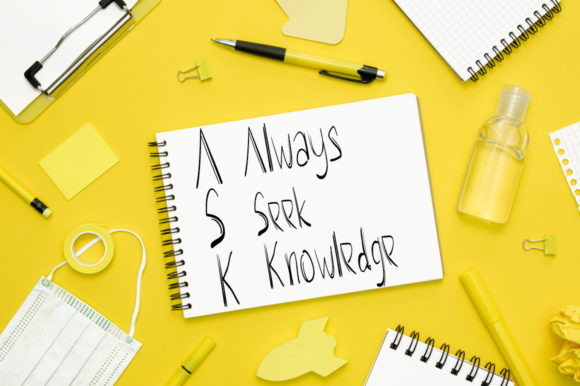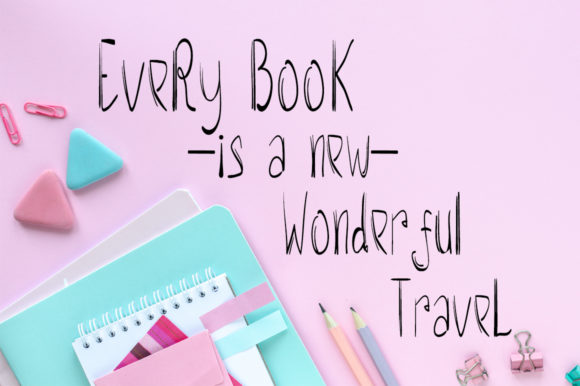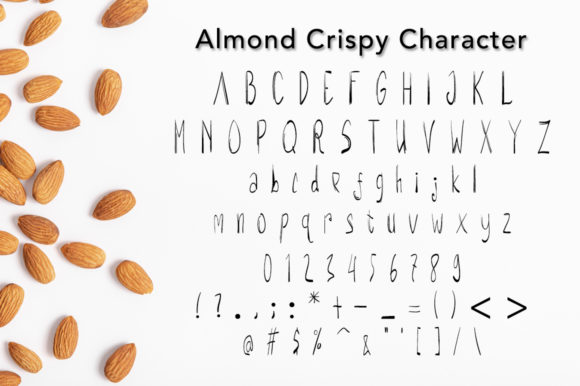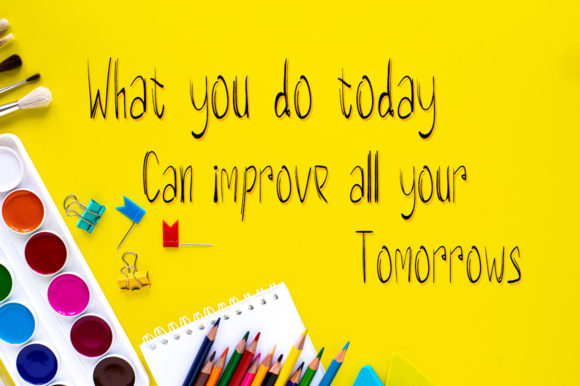
Almond Crispy Font
About Almond Crispy Font
Introducing Almond Crispy, a delightful and charming handwritten font that is both sweet and simple. Its alluring style captures the essence of elegance, making it a perfect choice for a wide range of design projects. This versatile font will undoubtedly capture your heart and inspire you to unleash your creativity.
With Almond Crispy, you can add a touch of warmth and friendliness to your designs. Its gentle curves and smooth strokes give it a unique and inviting appeal, making it ideal for various applications, from wedding invitations to greeting cards, and everything in between. The natural flow of the handwritten characters exudes a sense of authenticity, allowing you to convey heartfelt messages with a personal touch.
The beauty of Almond Crispy lies in its flexibility. Whether you’re working on a brand logo, website design, or social media graphics, this font effortlessly adapts to any context, adding a touch of elegance and charm to your visuals. Its simplicity also ensures readability, making it perfect for both large headlines and body text.
Embrace the endless possibilities that Almond Crispy offers and let your imagination run wild. Create stunning typography, captivating quotes, and artistic illustrations that resonate with your audience. This font opens the door to creativity, allowing you to craft designs that leave a lasting impression on everyone who encounters them.
Don’t miss the chance to fall in love with Almond Crispy and explore its magic for yourself. Its handwritten charm and versatility make it a must-have tool for designers, bloggers, and creatives of all kinds. So, unlock the potential of this delightful font and watch as it elevates your designs to new heights!